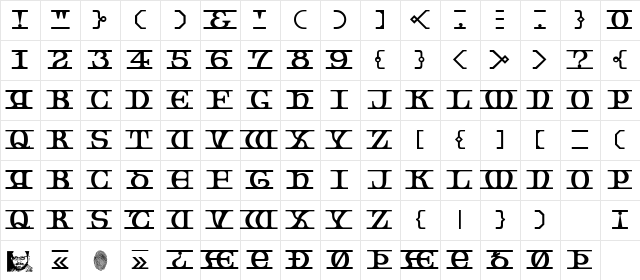
Trudeau Regular Free Font
Trudeau Regular
Design Context for Trudeau
Trudeau is a composed and adaptable typeface that performs quietly and consistently across a wide range of design contexts.